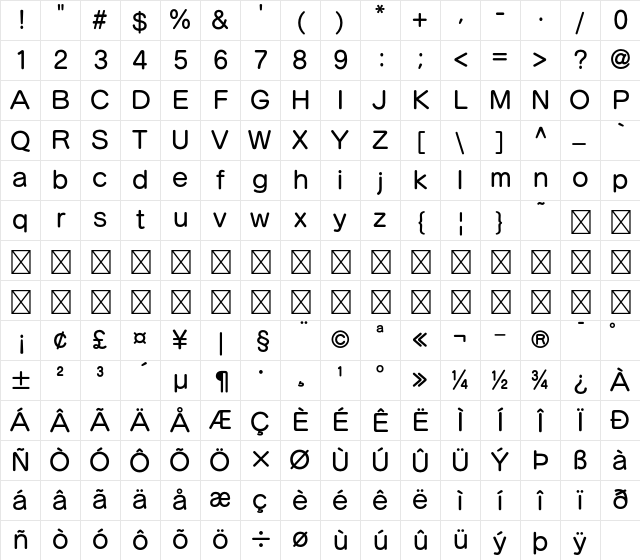
Complete FOT-SeuratCapie Pro DB glyph index. Displaying only characters natively supported by FOT-SeuratCapie Pro DB font.
FOT-SeuratCapie Pro is a composed and adaptable typeface that performs quietly and consistently across a wide range of design contexts.